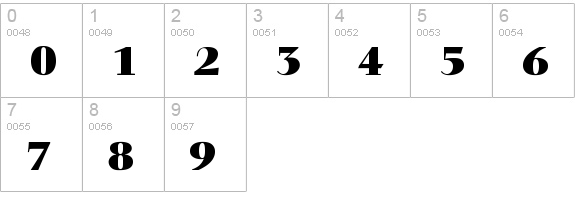
Nofret R Font Details
Nofret R font is a stunning and elegant typeface that exudes sophistication and style. With its sleek lines and graceful curves, this font is perfect for adding a touch of class to any design project. Whether you're creating a wedding invitation, a business card, or a logo, Nofret R font is sure to make a lasting impression. What's even better is that Nofret R font is available for free download at FontsMarket.com. This means that you can add this beautiful font to your collection without having to spend a penny. Don't miss out on the opportunity to enhance your designs with the timeless beauty of Nofret R font. Download it today and let your creativity shine!